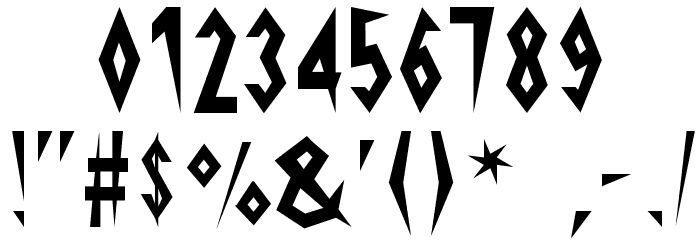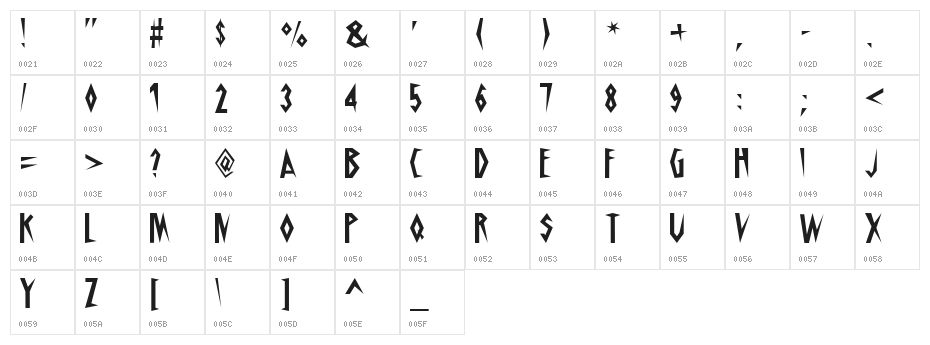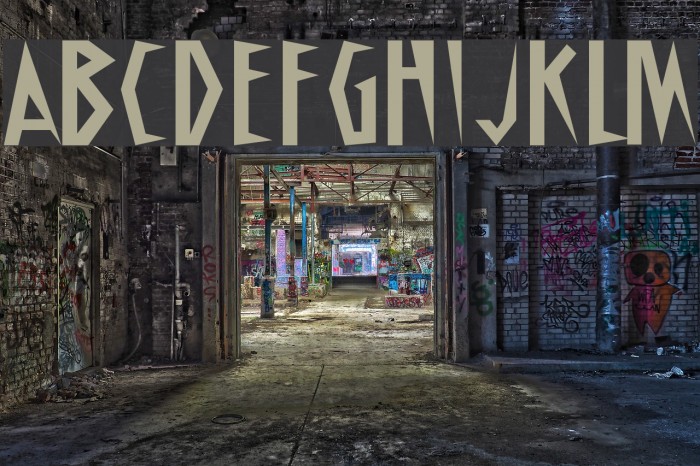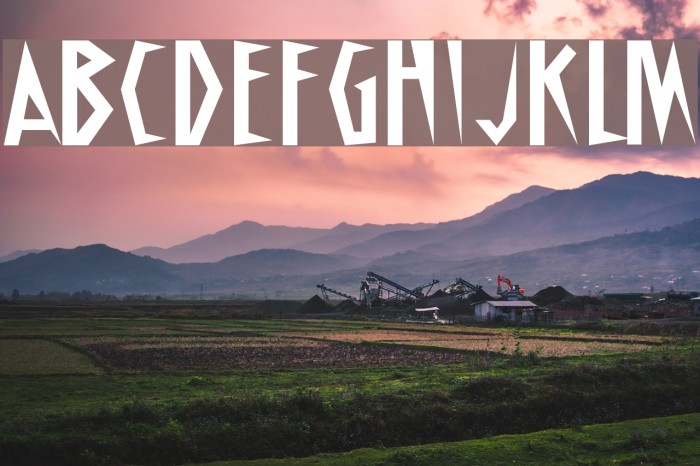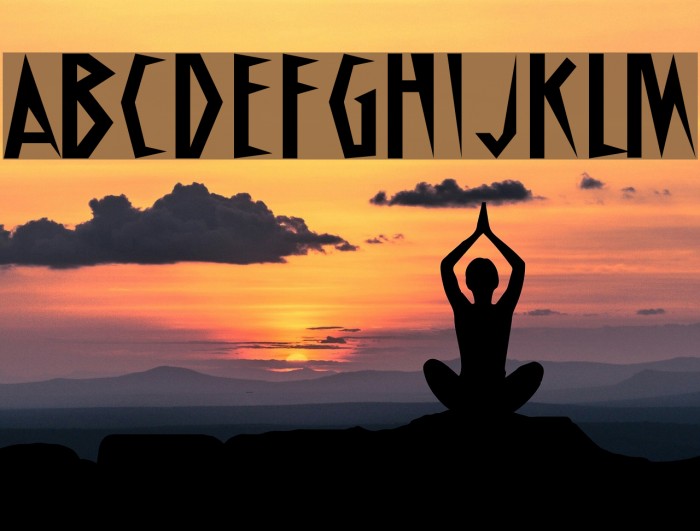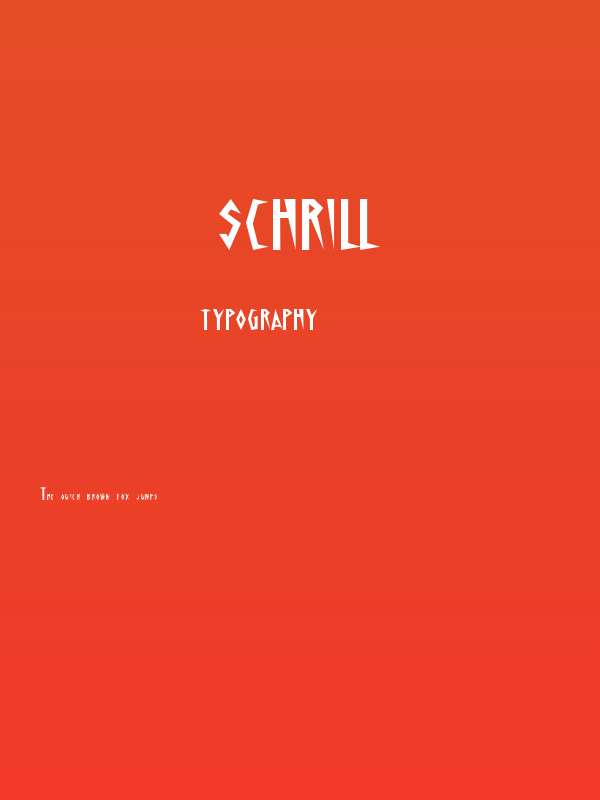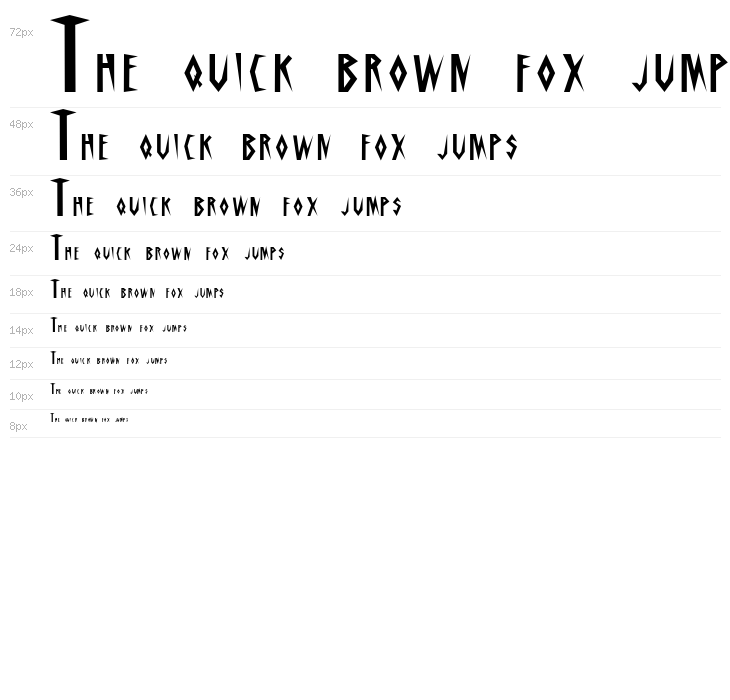
Schrill Font
Schrill Description
This font features a bold and angular design, characterized by sharp edges and a dynamic, energetic appearance. The uppercase letters are particularly striking, with exaggerated points and a geometric style that conveys a sense of movement and intensity. The lowercase letters maintain this angular theme, providing a cohesive look across the alphabet. Numbers and special characters are equally bold, ensuring consistency throughout. This font's unique style makes it stand out, perfect for projects that require a strong visual impact.
| Proposed Projects | Ideal for music album covers, event posters, or branding that requires a bold statement. |